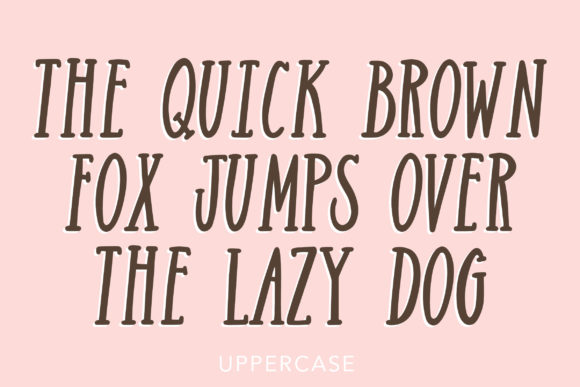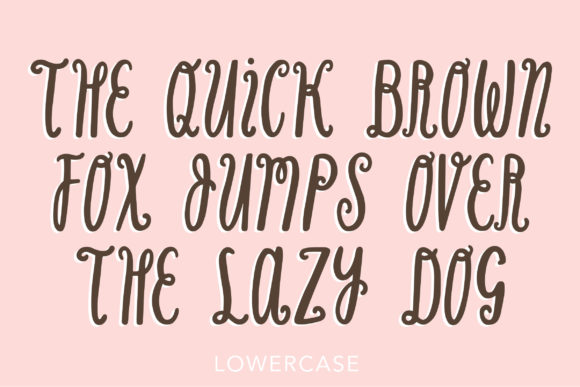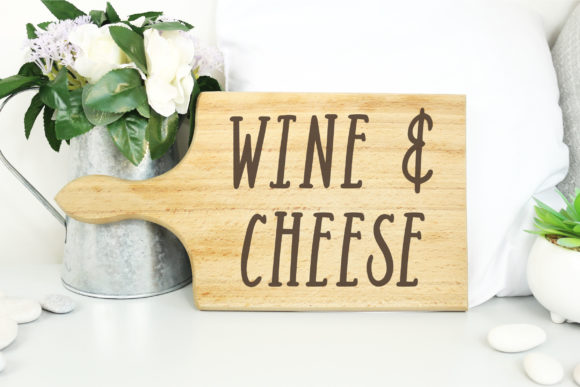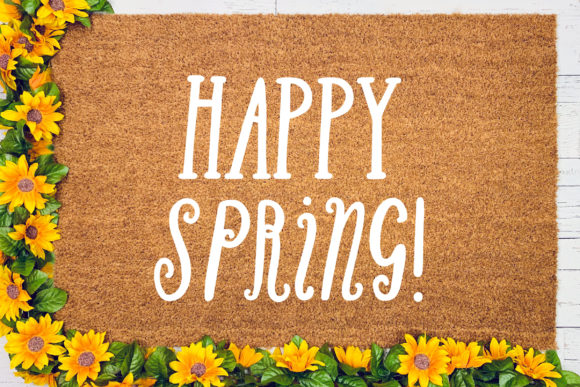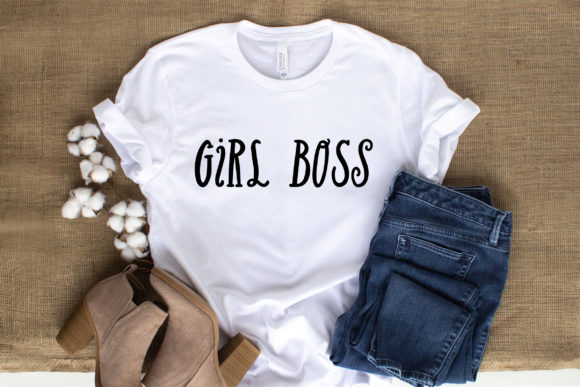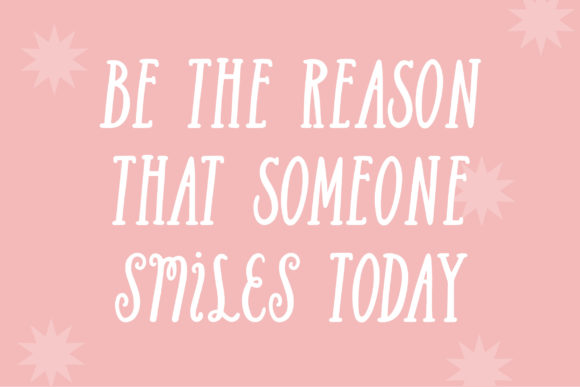
Introducing Chocolate Croissant: The Ultimate Display Font for Creative Projects
Are you a designer, crafty enthusiast, or simply a lover of all things typography? Look no further! We’re excited to introduce Chocolate Croissant, a cool and stylish display font that’s perfect for adding a touch of elegance and whimsy to your creative projects. In this article, we’ll dive into the features, benefits, and uses of Chocolate Croissant, and explore how it can elevate your designs to the next level.
What is Chocolate Croissant?
Chocolate Croissant is a modern, script-inspired display font that’s designed to make a statement. Its unique blend of curves, swirls, and elegant lines makes it perfect for creating eye-catching headlines, logotypes, and titles. The font’s stylish and sophisticated aesthetic is sure to add a touch of luxury and refinement to any design project.
Key Features of Chocolate Croissant
- Unique and stylish design: Chocolate Croissant boasts a distinctive and fashionable design that’s sure to turn heads.
- Highly versatile: This font is suitable for a wide range of creative projects, from logotypes and headlines to posters, magazines, and websites.
- Elegant and refined: Chocolate Croissant’s sophisticated aesthetic makes it perfect for luxury brands, high-end products, and creative designs that require a touch of elegance.
- Easy to read: Despite its ornate design, Chocolate Croissant remains highly legible, making it perfect for use in titles, headings, and short paragraphs.
Uses of Chocolate Croissant
So, what can you use Chocolate Croissant for? The possibilities are endless! Here are some ideas to get you started:
- Logotype and branding: Create a memorable and stylish logotype that reflects your brand’s personality and values.
- Headlines and titles: Add a touch of sophistication and elegance to your headlines and titles with Chocolate Croissant.
- Posters and flyers: Create eye-catching posters and flyers that grab attention and leave a lasting impression.
- Apparel and merchandise: Add a stylish touch to your apparel and merchandise designs with Chocolate Croissant.
- Web design: Use Chocolate Croissant to create stunning website headers, titles, and other typography elements.
- Social media: Elevate your social media presence with stylish and eye-catching graphics featuring Chocolate Croissant.
Benefits of Using Chocolate Croissant
So, why choose Chocolate Croissant for your design projects? Here are just a few benefits of using this amazing font:
- Stand out from the crowd: Chocolate Croissant’s unique design ensures that your designs will stand out from the crowd and grab attention.
- Professional and polished look: Add a touch of sophistication and elegance to your designs with Chocolate Croissant.
- Time-saving: With Chocolate Croissant, you can create stunning designs in no time, thanks to its easy-to-use and highly legible design.
| Font Name | Chocolate Croissant Font |
| Author | kelliejaynestudio |
In conclusion, Chocolate Croissant is an incredible display font that’s perfect for designers, crafters, and anyone looking to add a touch of elegance and whimsy to their creative projects. With its unique design, versatility, and ease of use, Chocolate Croissant is sure to become a favorite in your font collection. So why wait? Download Chocolate Croissant today and start creating stunning designs that will leave a lasting impression!
Whether you’re a seasoned designer or just starting out, Chocolate Croissant is the perfect addition to your toolkit. So go ahead, get creative, and indulge in the rich, velvety goodness of Chocolate Croissant!